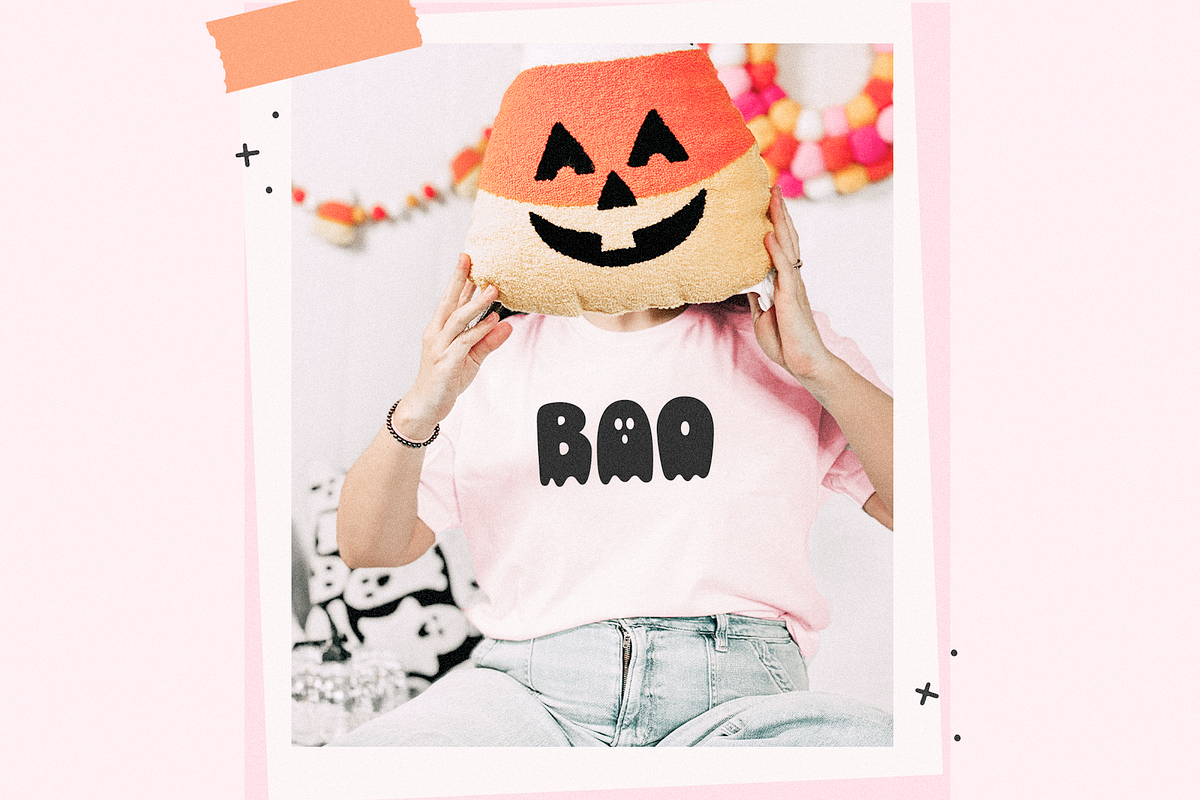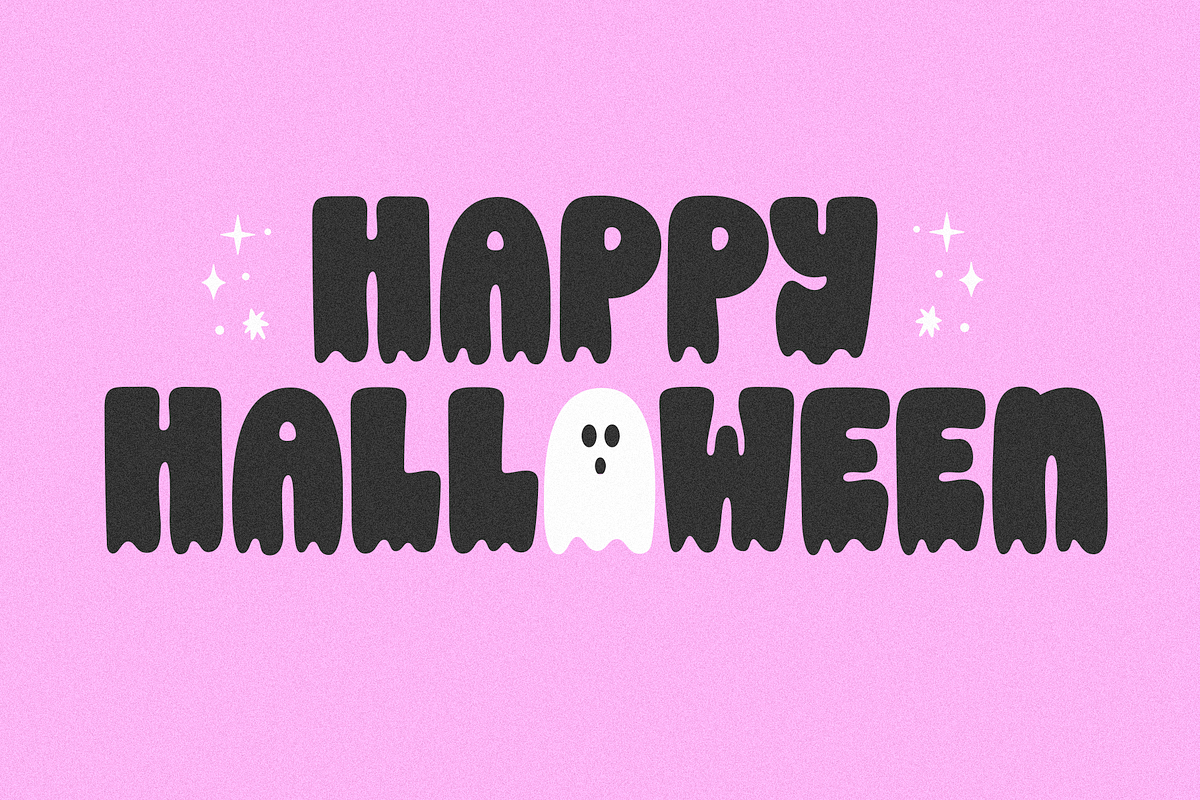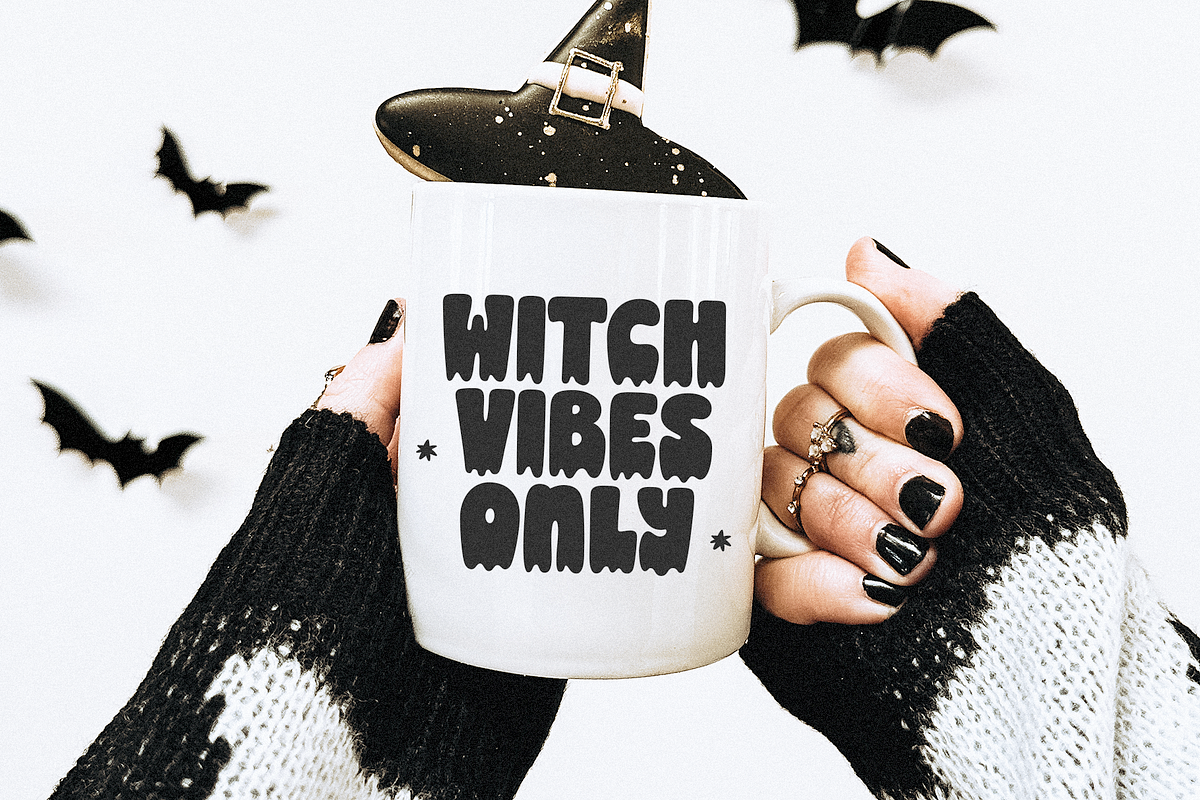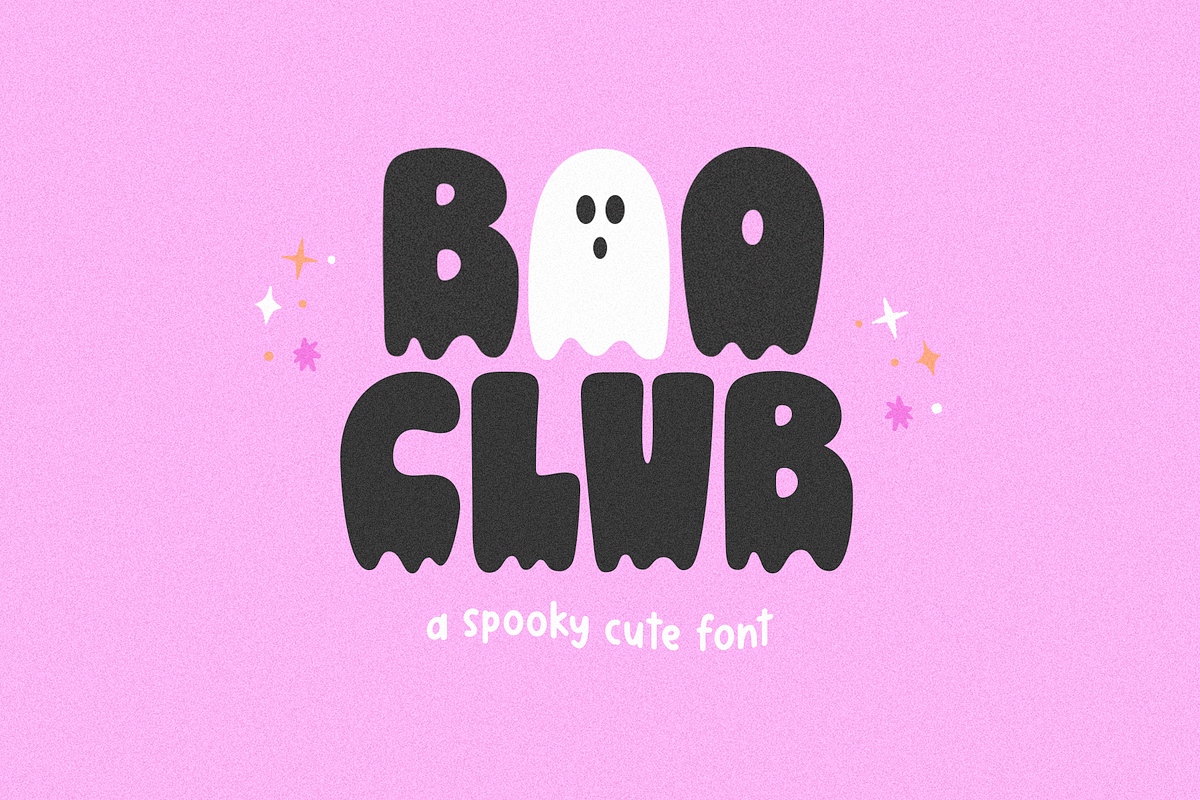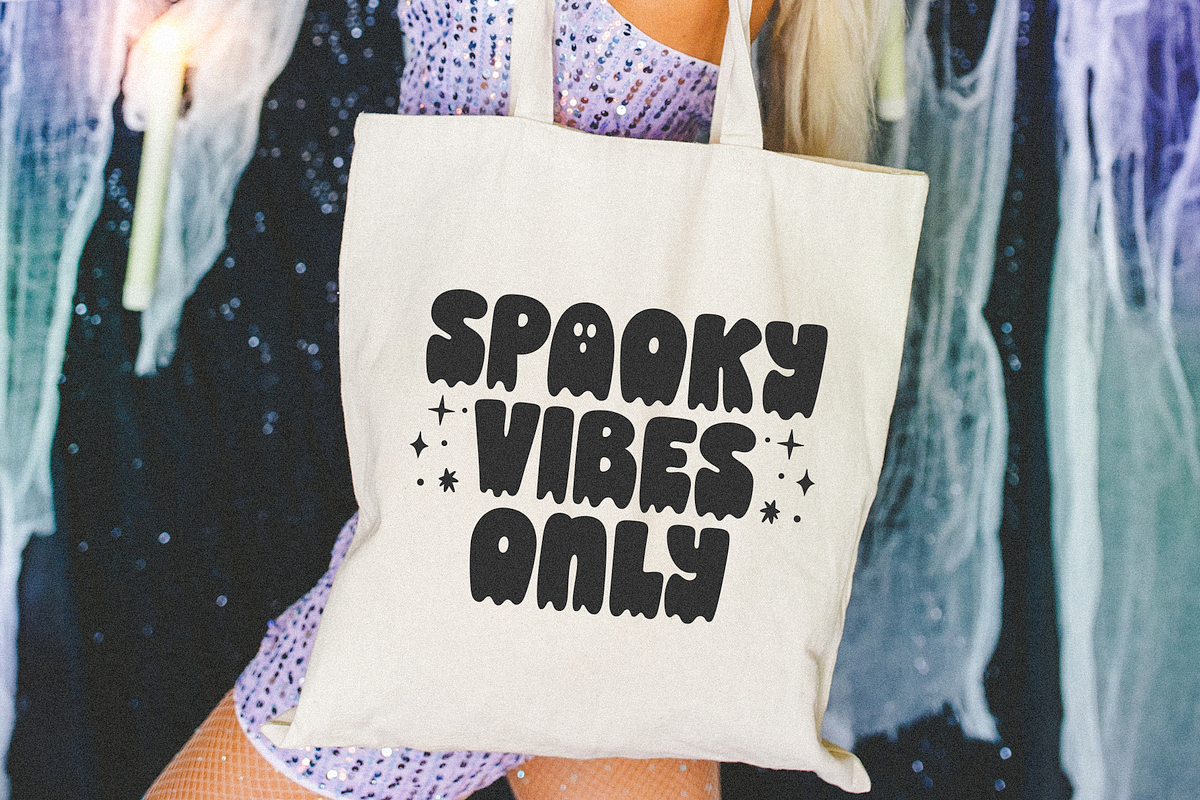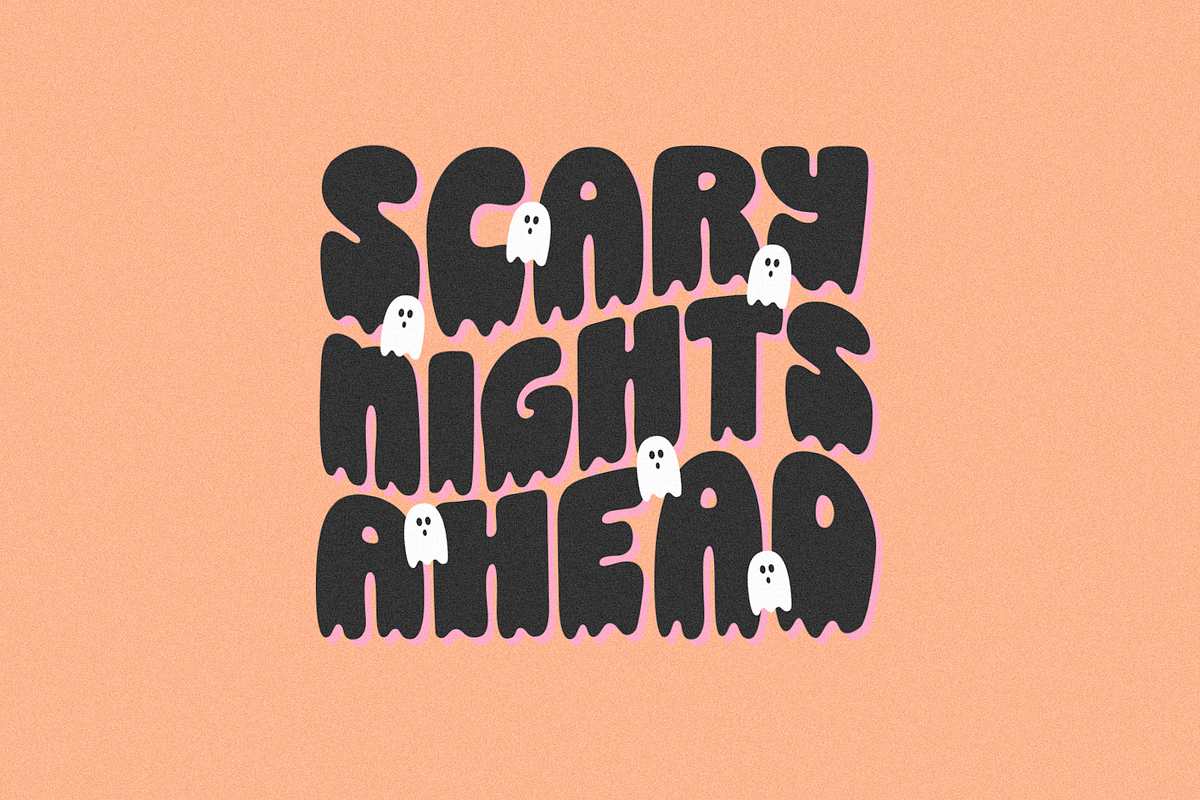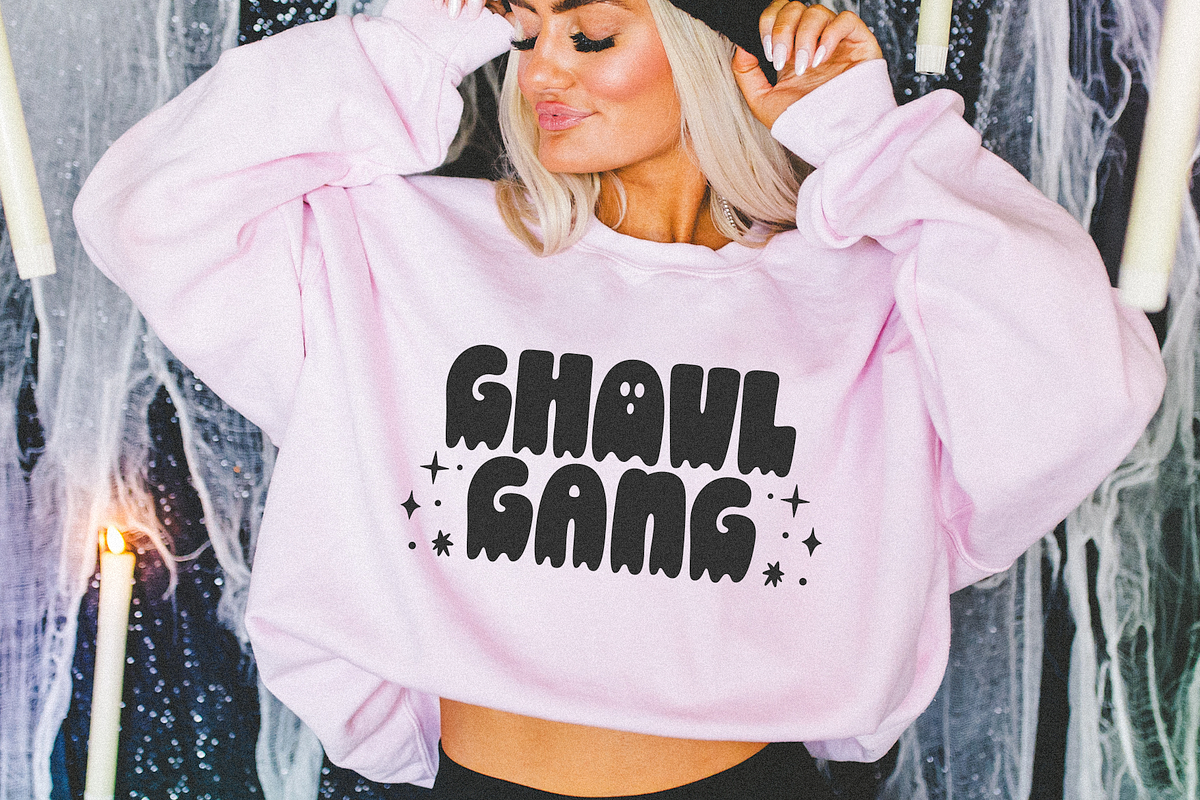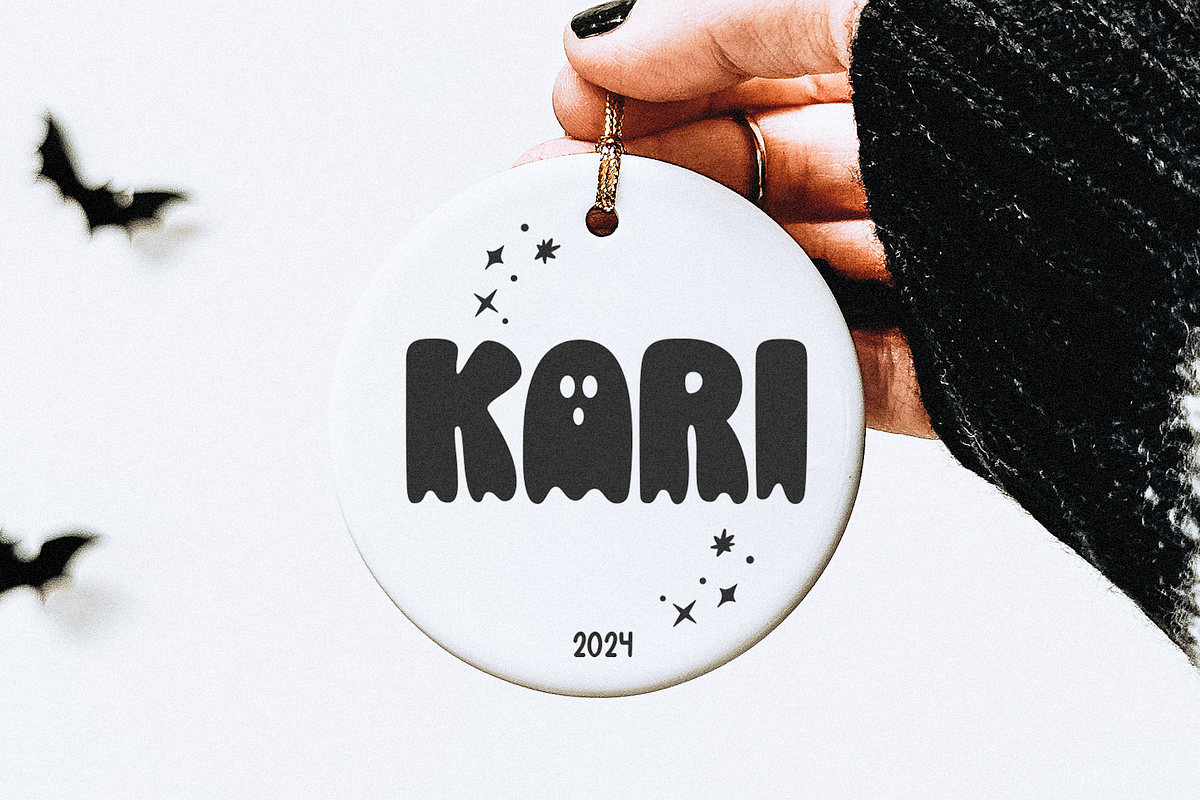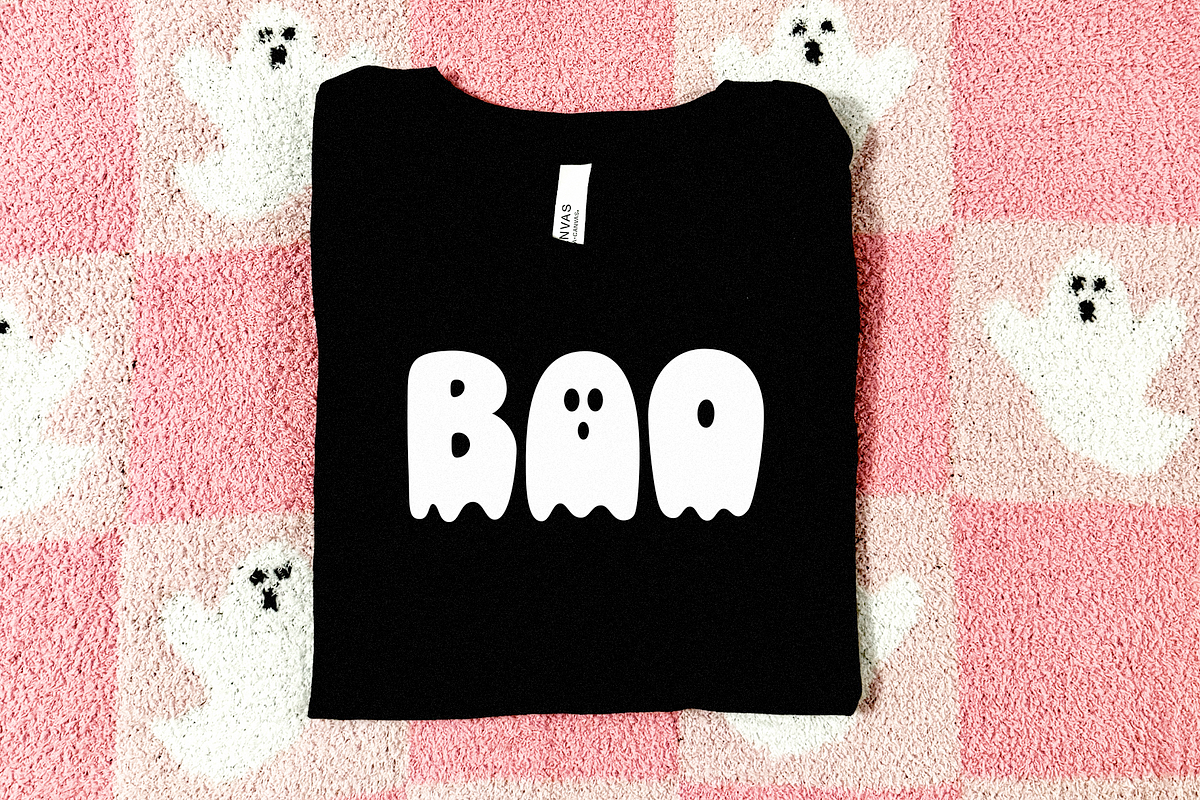
Boo Club | Halloween Font
FabBooLous is a spooky halloween font with a dripping effect!
This is an all caps font.
This font is perfect for your cricut projects, shirts, retro designs, halloween invitations, mugs, stickers, teachers, goodnotes and more!
Use lowercase o to access ghost
Use curly braces { } for twinkle embellishments